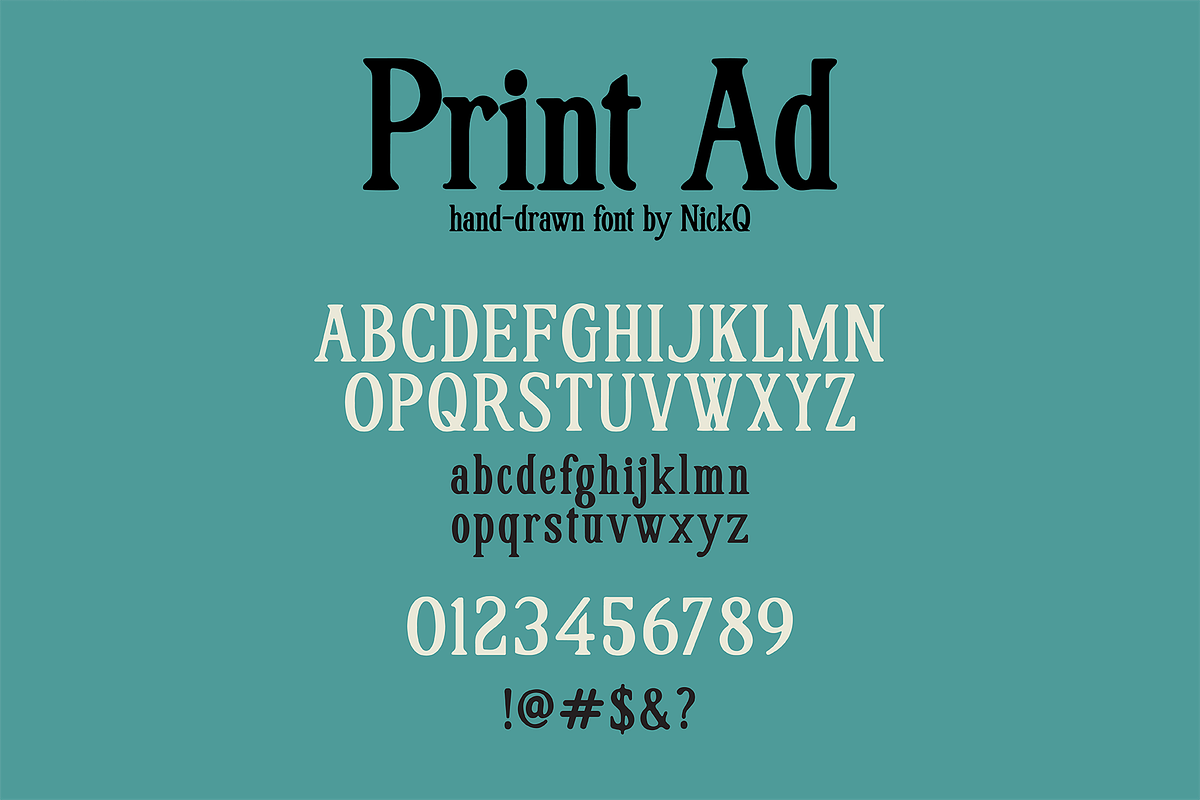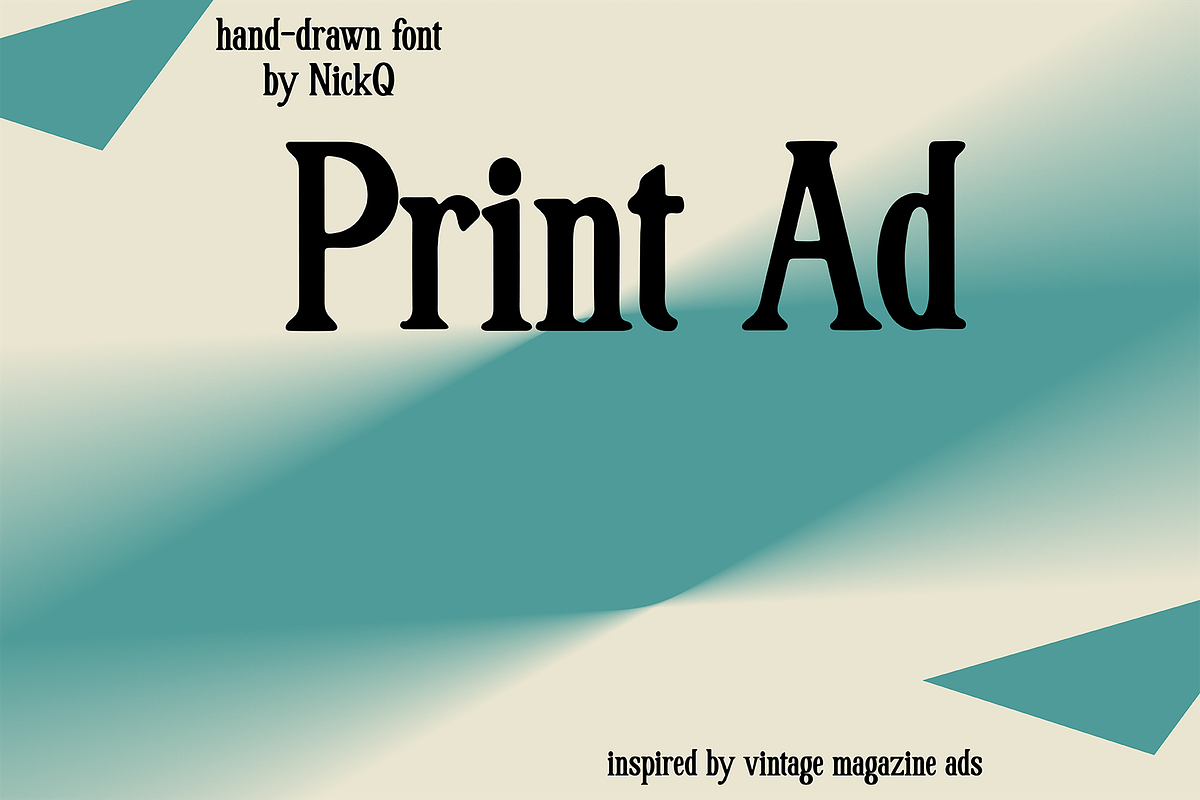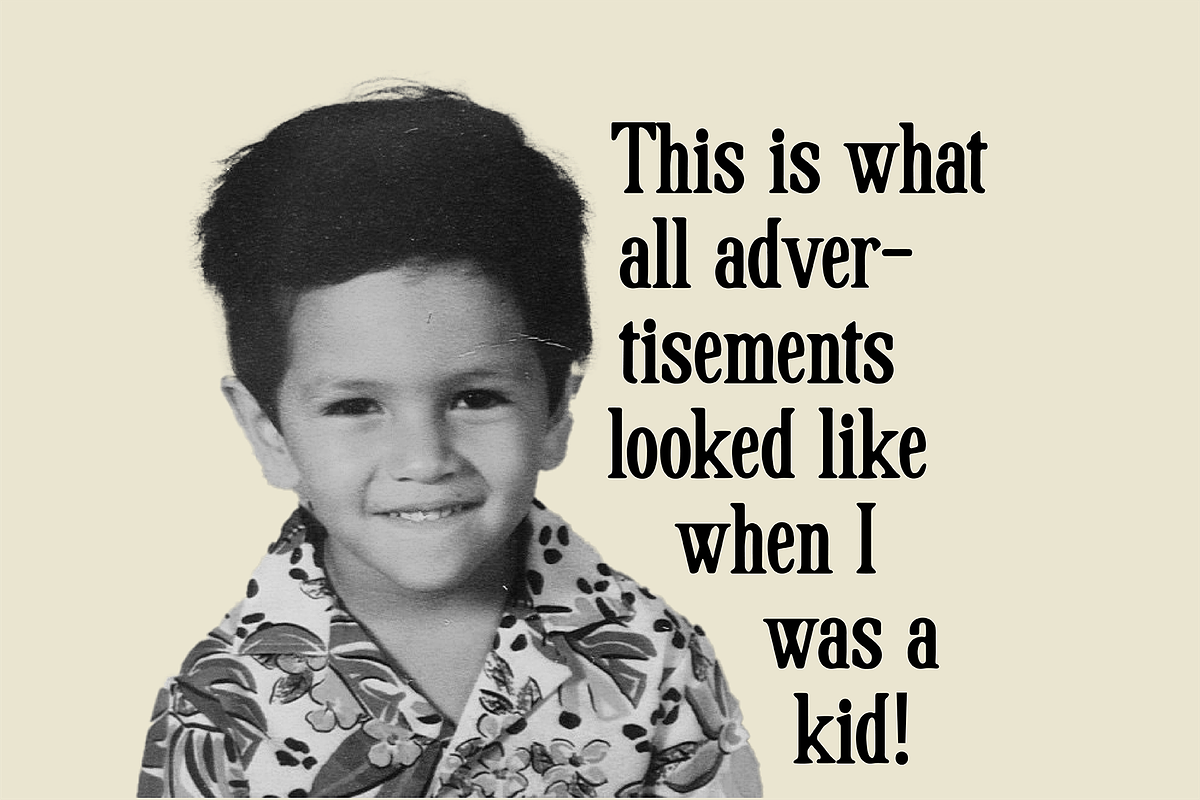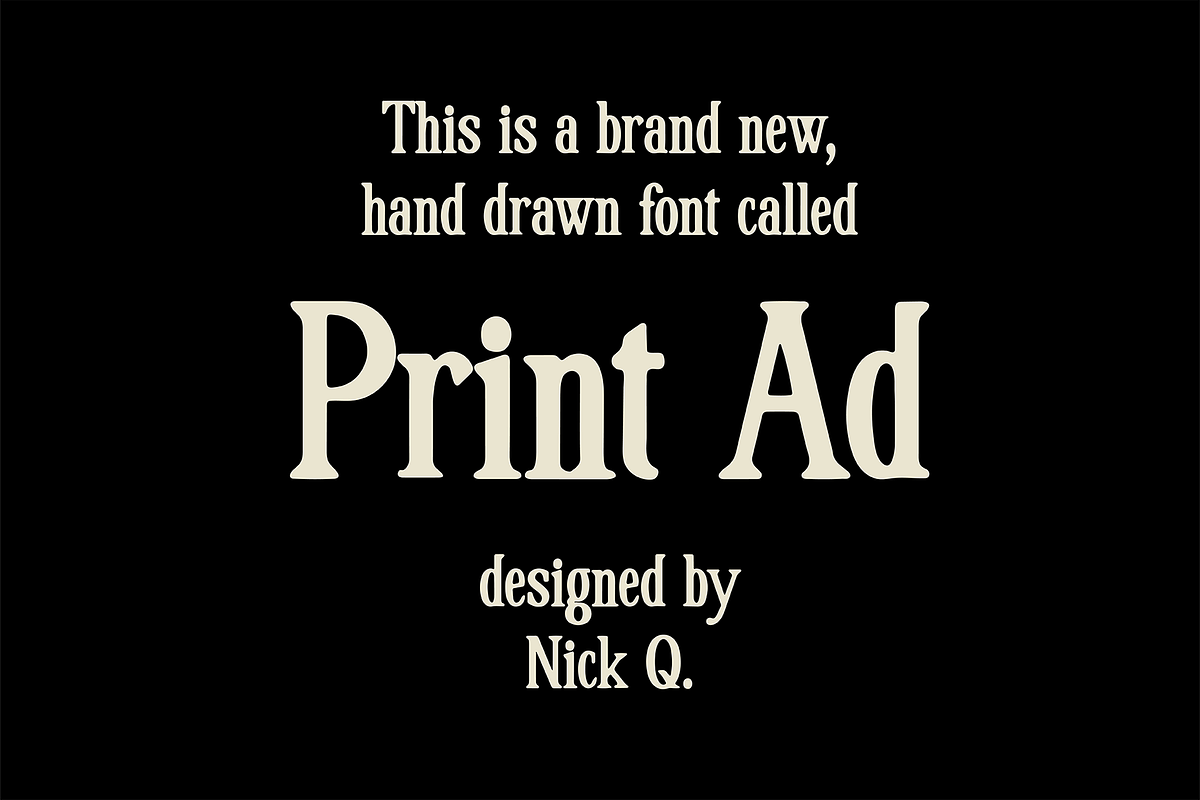
Print Ad Hand Drawn Font
This font is inspired by all of the old magazine ads from the 80s and 90s when I was a kid. This one has all uppercase and lowercase characters, all numbers but limited special characters. Enjoy!